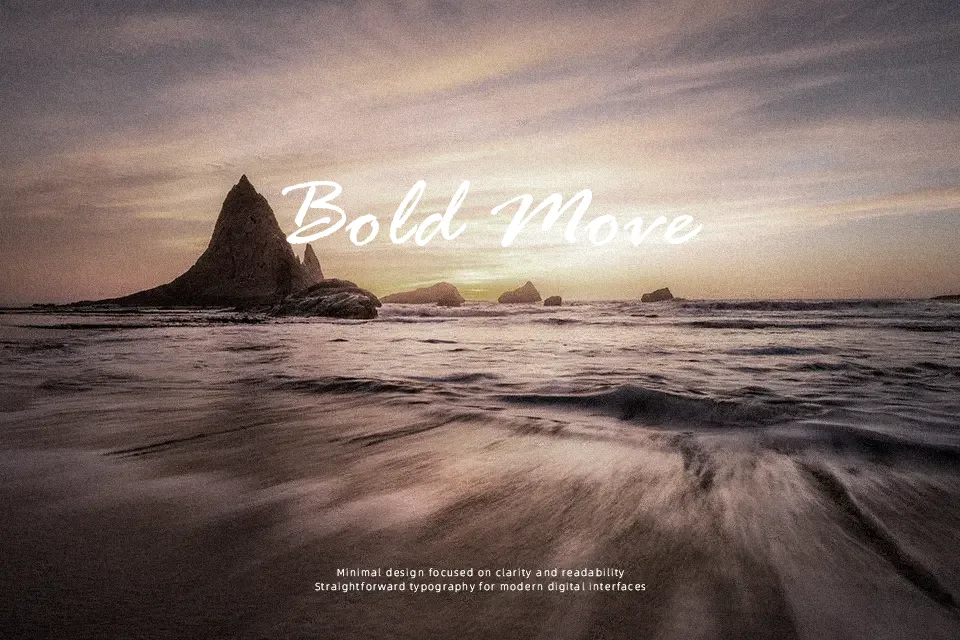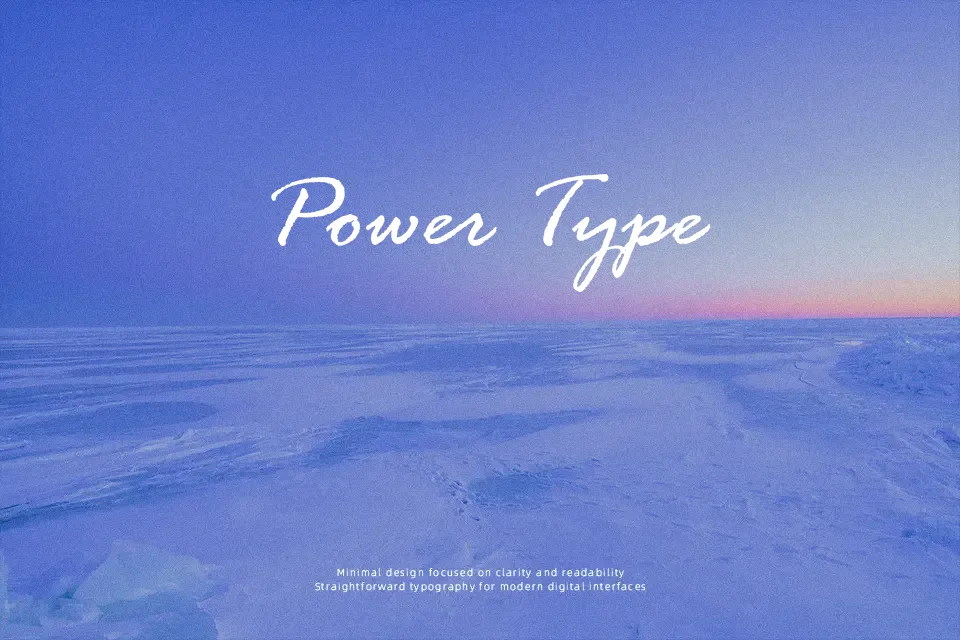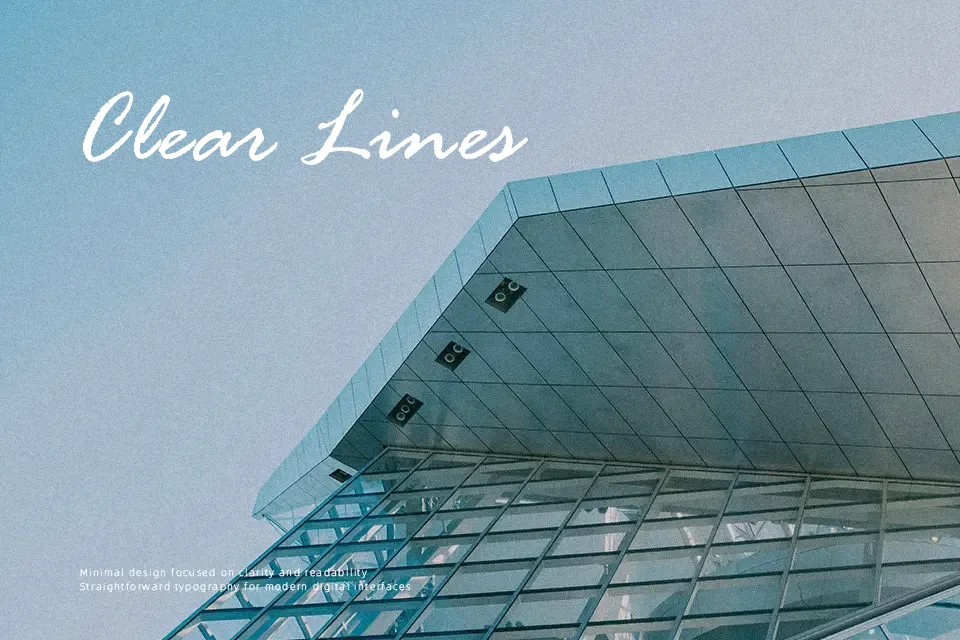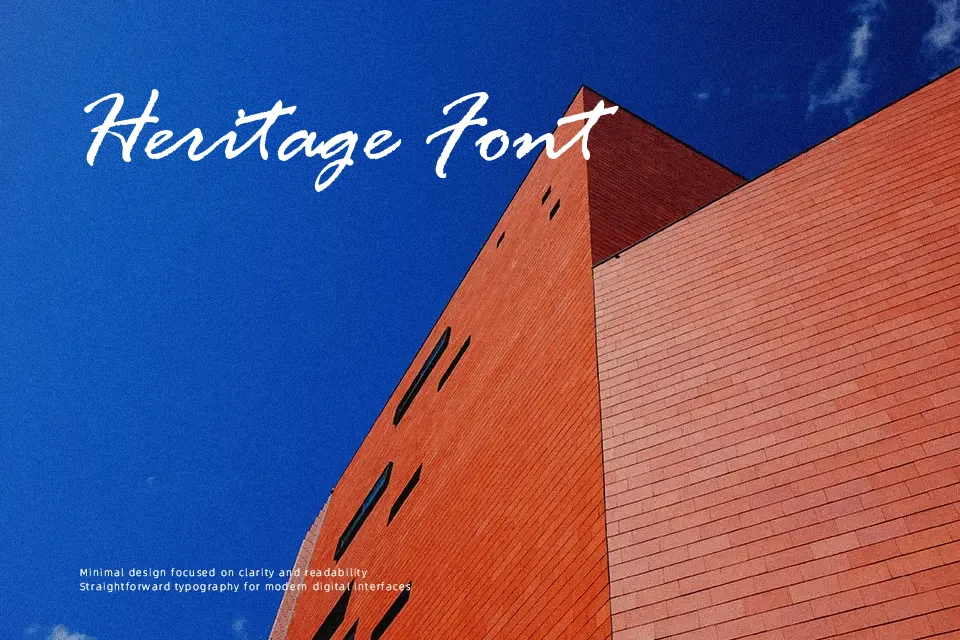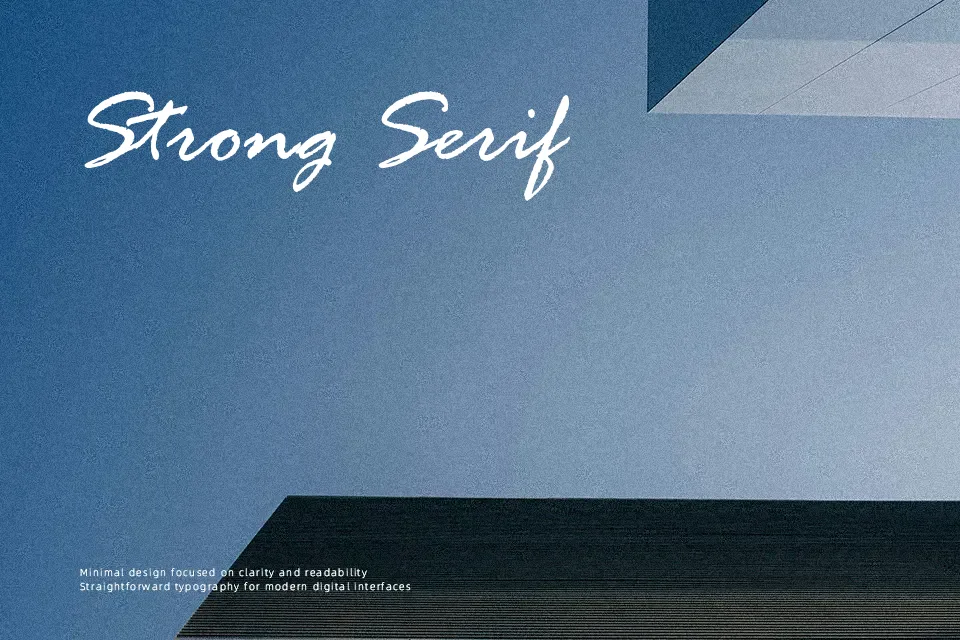
Rage Italic Font
The immediate emotional impact of Rage Italic lies in its raw, spontaneous energy. Designed by Ron Zwingelberg in 1984, this casual brush script features rough, textured edges that mimic the fast, imperfect strokes of a dry brush or pen. The aggressive slant and unique combination of distinct capital letters with connecting lowercase forms create a dynamic, authentic handwriting style that feels incredibly powerful and fast-paced.
Because of its aggressive, forward-leaning momentum, this typeface excels in action-oriented applications like extreme sports logos, intense movie posters, and high-energy automotive branding. However, this same jagged intensity makes it a terrible choice for reading formal legal documents or professional financial reports, where its rough texture will severely compromise legibility and look highly unprofessional. It stands out as one of the most recognizable casual brush scripts available.
– extreme sports branding
– high-energy movie posters
– automotive logo design
– dynamic advertising campaigns
– formal legal documents
– dense financial reports
– elegant wedding invitations
Perfect for advertising, branding, and headline, with a bold and brush style.